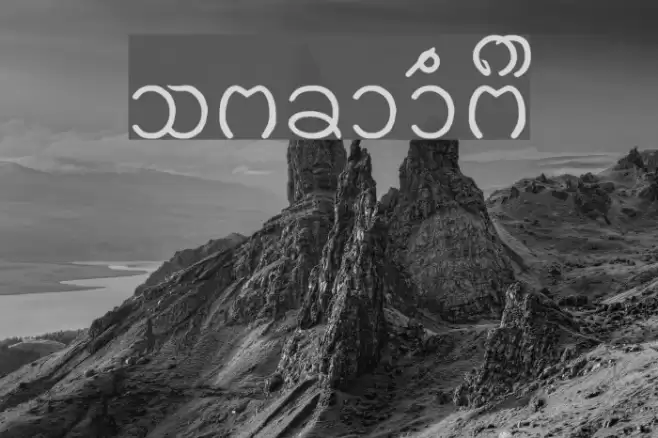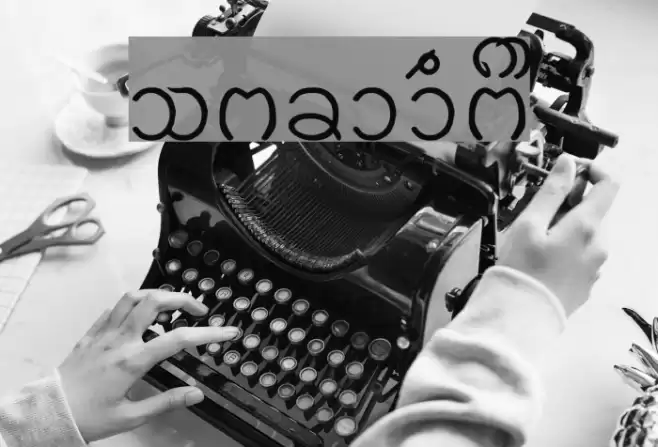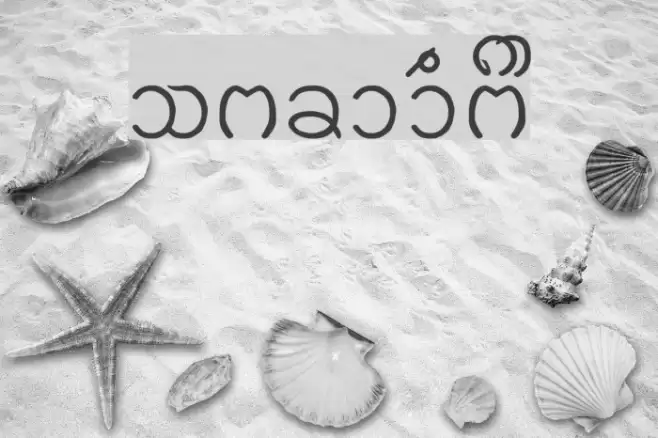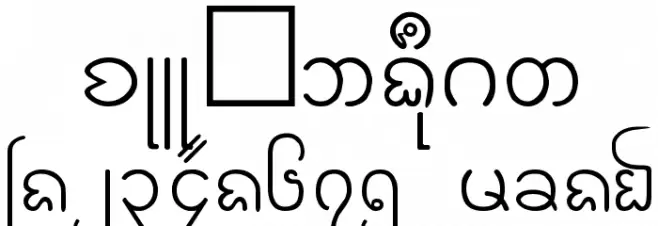
Cr-khern Font
Cr-khern Description
This image contains Burmese script with several missing glyphs, indicated by empty boxes. The visible characters are rounded, monolinear, and have a clean, modern appearance with consistent stroke thickness.
Rounded, monolinear Burmese script with missing glyphs from Uncategorized fonts.
- Proposed Projects: Language learning materials, signage, educational posters, digital interfaces.
- Use Case: Body text, educational materials, digital content.